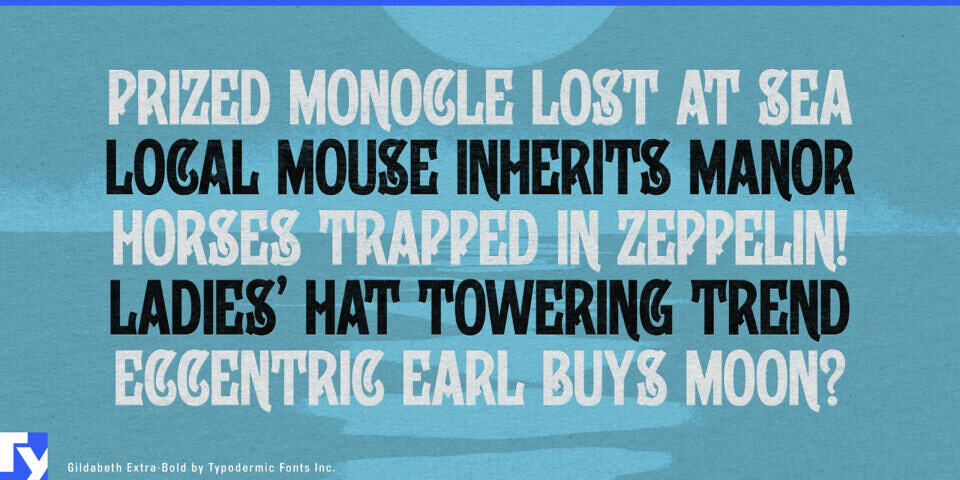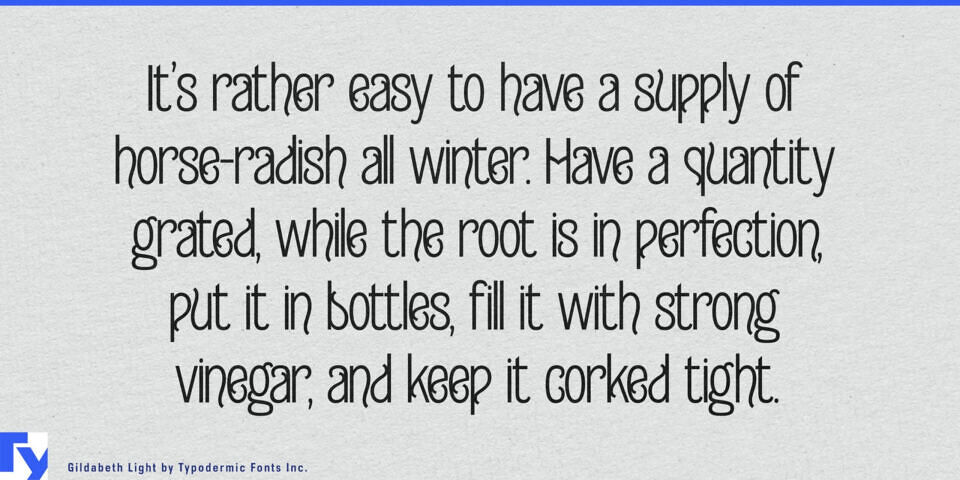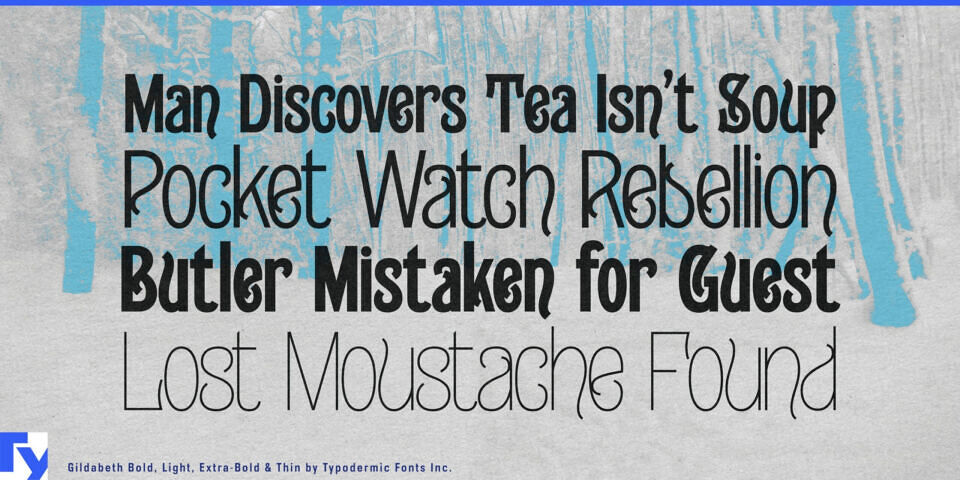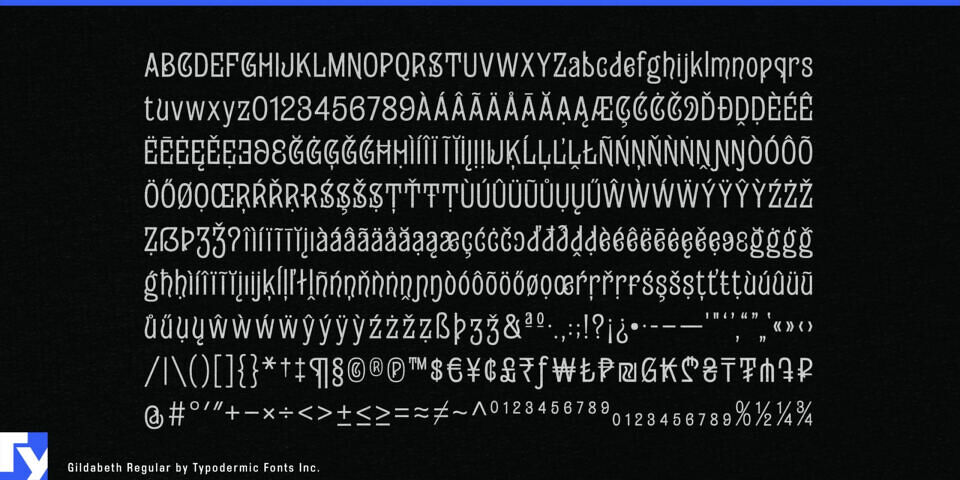
Gildabeth is a narrow, high-contrast sans serif inspired by the eccentric display lettering of the late 19th century. Drawing on faces like Campanile and Attic, it preserves their quirky modulation and theatrical curves while trimming away the fuss for contemporary use.
Its slim proportions pack plenty of draintoma tight spaces, making it ideal for headlines, posters, book covers, and bold branding. Rugged strokes give the design a confident, handmade character, bringing vintage flair and expressive energy to modern typography. Includes SemiBold and SemiBold Italic.